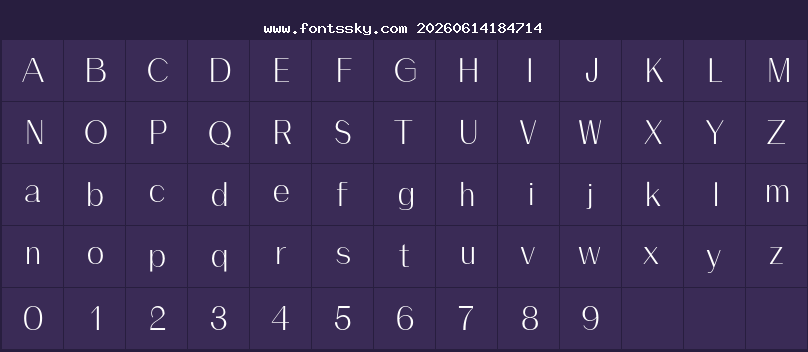
Malak Demo Preview
• Font Name: Malak Demo
• Designer: Faraz Ahmad
• Manufacturer: Creativetacos
• Description: The first grotesk parametric typeface
Malak Demo.otf is a modern, elegant sans-serif font designed for ultimate readability and visual harmony. Perfect for branding, headlines, web design, and print materials.